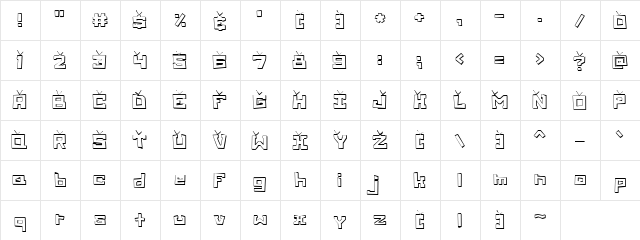
LD TV Regular
Design Context for LD TV Typeface
LD TV is a composed and adaptable typeface that performs quietly and consistently across a wide range of design contexts.